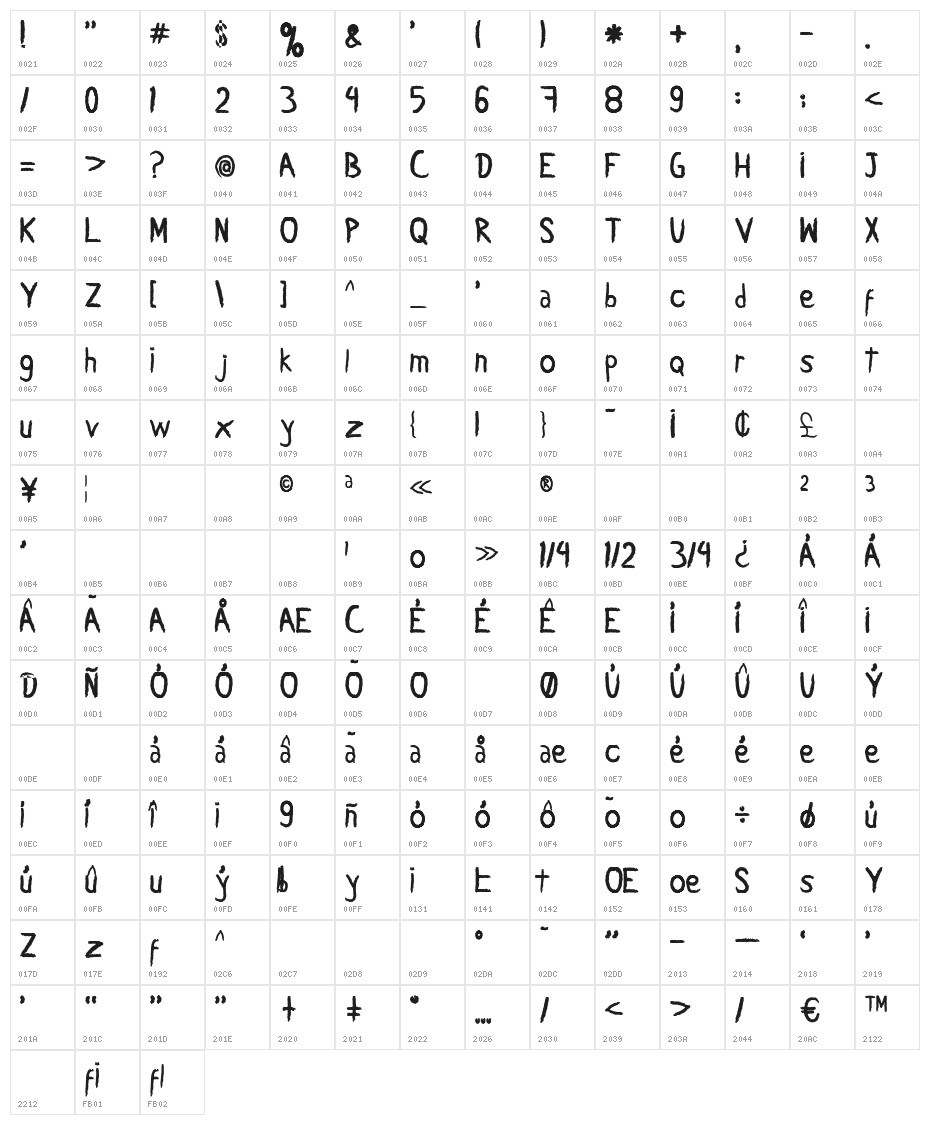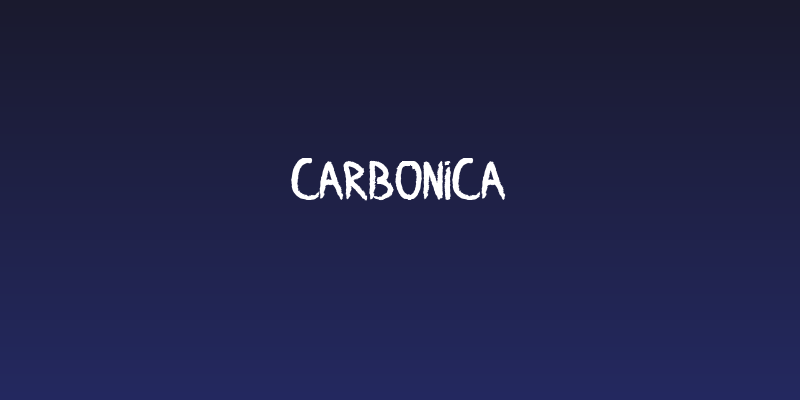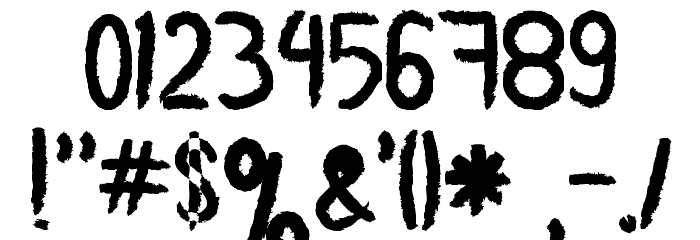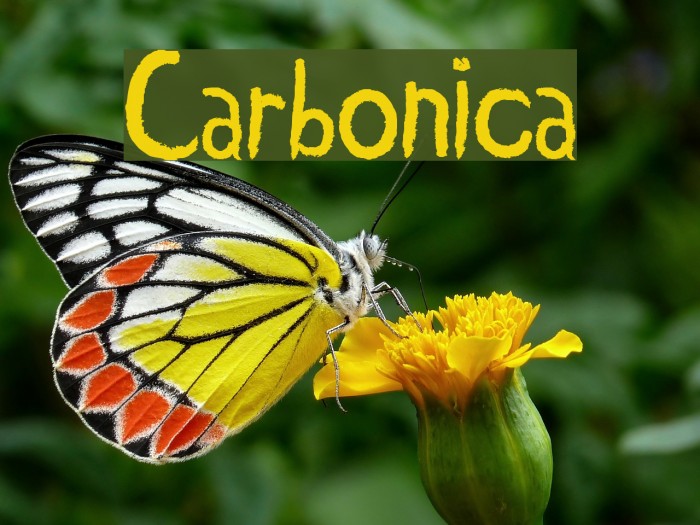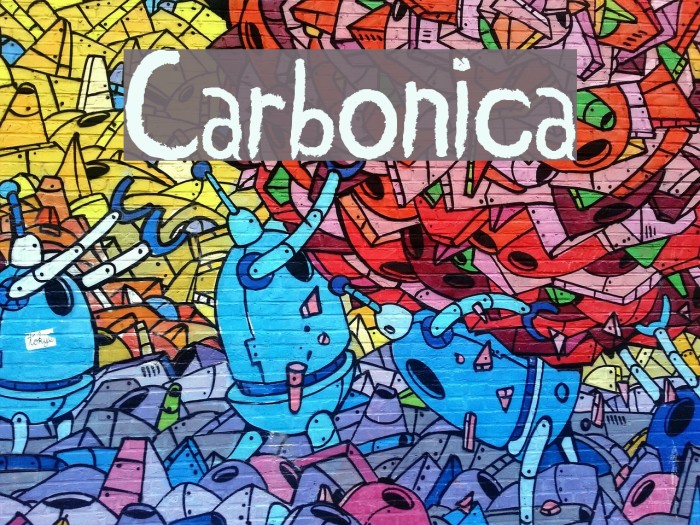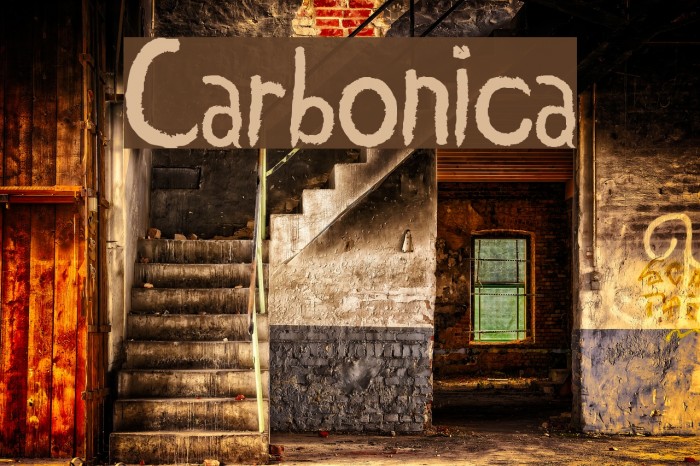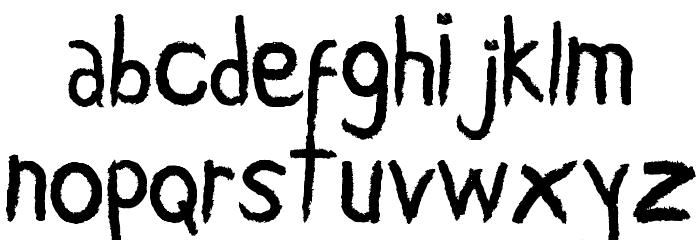
Carbonica Font
Carbonica Description
This font exhibits a bold and expressive handwritten style, characterized by its rough, textured strokes that convey a sense of dynamism and energy. The uppercase letters are prominent and slightly irregular, adding a touch of spontaneity and authenticity. The lowercase letters maintain a consistent style, complementing the uppercase with their casual and approachable appearance. Numbers and special characters follow the same aesthetic, ensuring a cohesive look across all text elements. The font's overall appearance is both artistic and informal, making it suitable for creative projects that require a personal touch.
| Proposed Projects | Ideal for artistic projects, informal branding, creative posters, and personal invitations. |